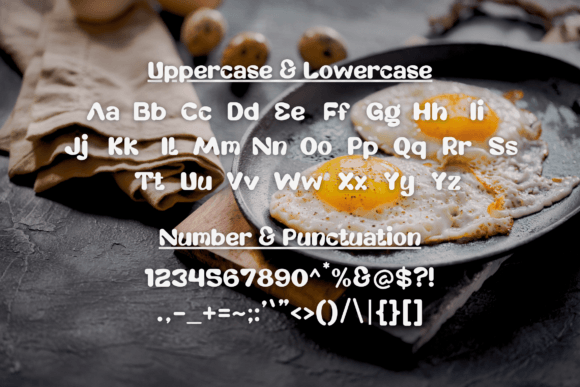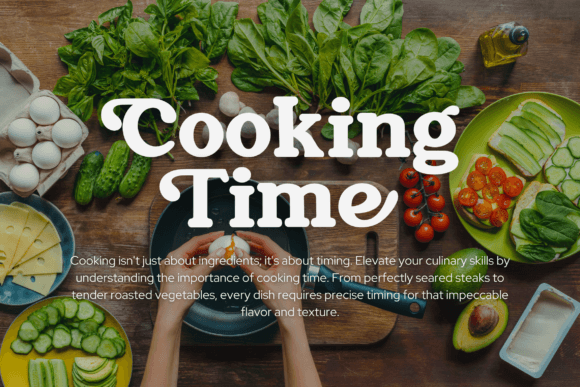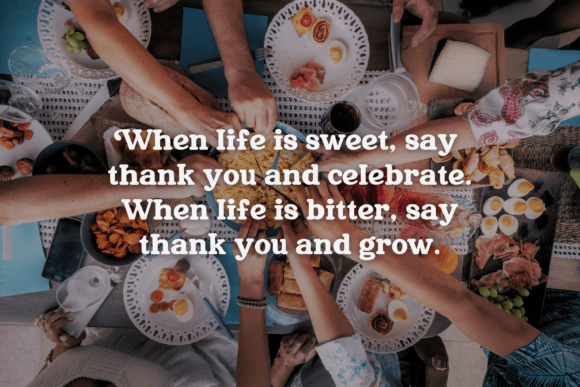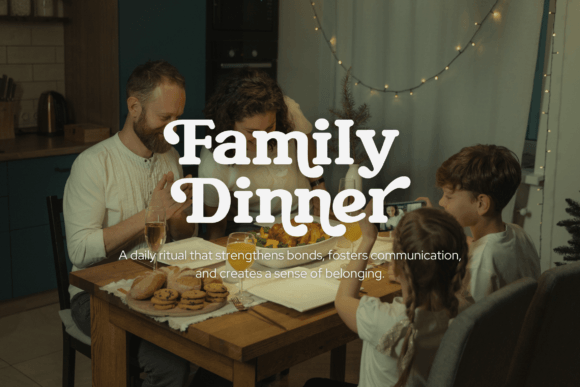
Introduction to Helo Omlet Font
Have you ever been working on a creative project, pouring your heart and soul into it, and then it all comes together with the perfect font? That’s exactly what happened when I stumbled upon the Helo Omlet Font. Its modern and approachable design made my project shine, and I knew I had to share it with fellow designers.
As a designer, you’re constantly on the lookout for high-quality design resources that can elevate your work. The Helo Omlet Font is one such treasure, offering a unique blend of simplicity and sophistication that’s perfect for any project. With its transparent background and beautiful letter design, it’s an ideal choice for designers who want to add a touch of elegance to their work.
Key Features of Helo Omlet Font
- High-quality design: Helo Omlet Font is a premium, high-quality font perfect for creative projects, offering a unique and elegant design.
- Transparent background: Helo Omlet Font features a transparent background, allowing for seamless integration with various design elements.
- High-resolution design: Designed at 300 DPI, ensuring crisp and clear text output in various print and digital formats.
- Unique characteristics: The font’s distinctive style and elegant lines make it perfect for creative projects, such as branding, typography, and graphic design.
Honest Review: Helo Omlet Font
As a designer, I’ve had the pleasure of working with various fonts for different creative projects. Recently, I stumbled upon the Helo Omlet Font, and I must say, it’s been an interesting experience.
- The font’s unique, hand-drawn design adds a touch of personality to any project.
- The transparent background option allows for seamless integration with any image or design element.
- High-quality vectors make it easy to resize and manipulate without losing quality.
- The font may not be suitable for large-scale commercial projects due to its hand-drawn nature.
Overall, the Helo Omlet Font is a great addition to any designer’s toolkit, especially for creative projects that require a unique touch. While it has its limitations, its free download and high-quality vectors make it a valuable design resource.
Getting the Most Out of the Helo Omlet Font
Some tips for getting the most out of the Helo Omlet Font include using it with a transparent background to create a unique design, experimenting with different font sizes and styles to add visual interest, and combining it with other design resources to create a cohesive look.
The Helo Omlet Font is commonly used in creative projects such as logo design, branding, and marketing materials. It can also be used in educational projects, such as presentations and documents, to add a creative touch. With its high-quality design and free download option, the Helo Omlet Font is a valuable resource for designers and non-designers alike.